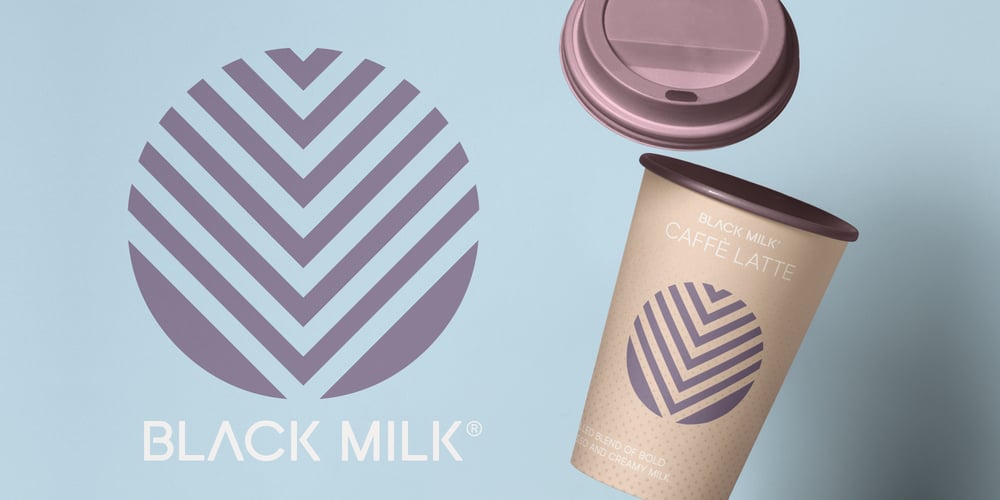
Flogotop Logomark Font Family was designed by Stanislav Hatznik and published by Smartfont. Flogotop Logomark contains 1 styles and family package options. 52 logo marks inspired by geometry and clean, crisp, and universally symbolic design language. Make stunning logo designs with this eye-catching set of versatile shapes.Geometric elements in black color is suitable for logo design, business cards, posters, brand books, photography, postcards, patterns etc.Flogotop Logomark was created specifically for the Flogotop font family. Together, they create unique and memorable logos!